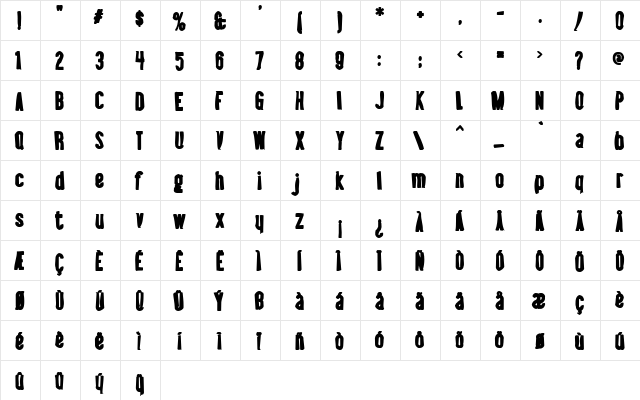
Libel Suit Ink Regular
| Designer | Ray Larabie - Larabie Fonts |
Design Context for Libel Suit Ink Typeface
Libel Suit Ink takes a measured approach to typography — its balanced proportions and neutral character make it a reliable workhorse for both digital and print work.